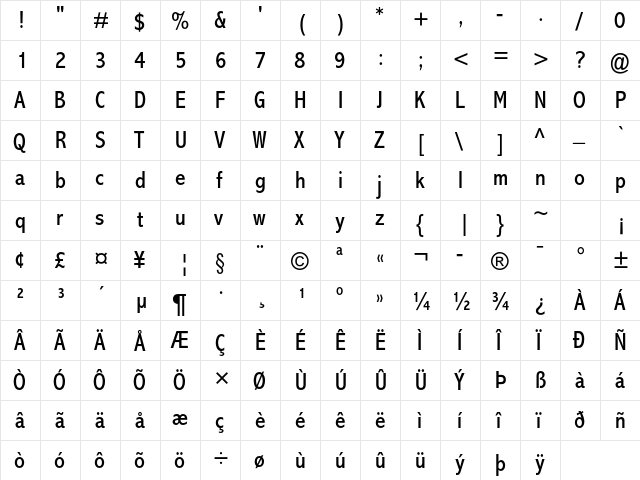
Abadi MT Std Condensed
Design Context for Abadi MT Std Typeface
Abadi MT Std is a composed and adaptable typeface that performs quietly and consistently across a wide range of design contexts. Its narrow stance lets it pack a punch even in space-constrained designs.
Pro Tip: Use Abadi MT Std in both headline and body roles to test its range before committing to a single application.